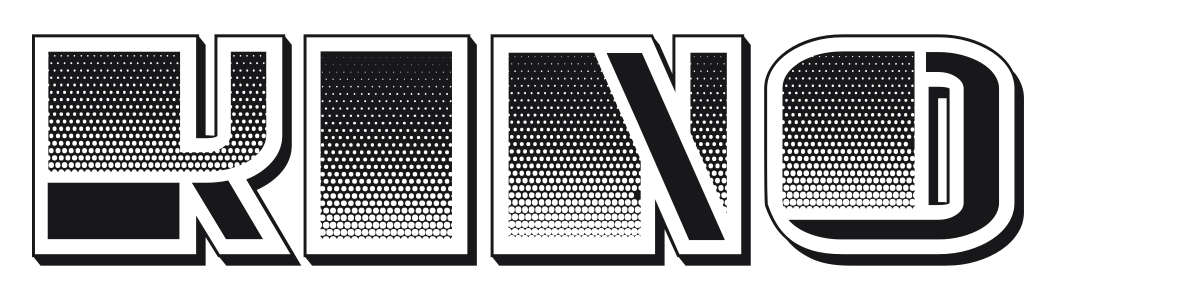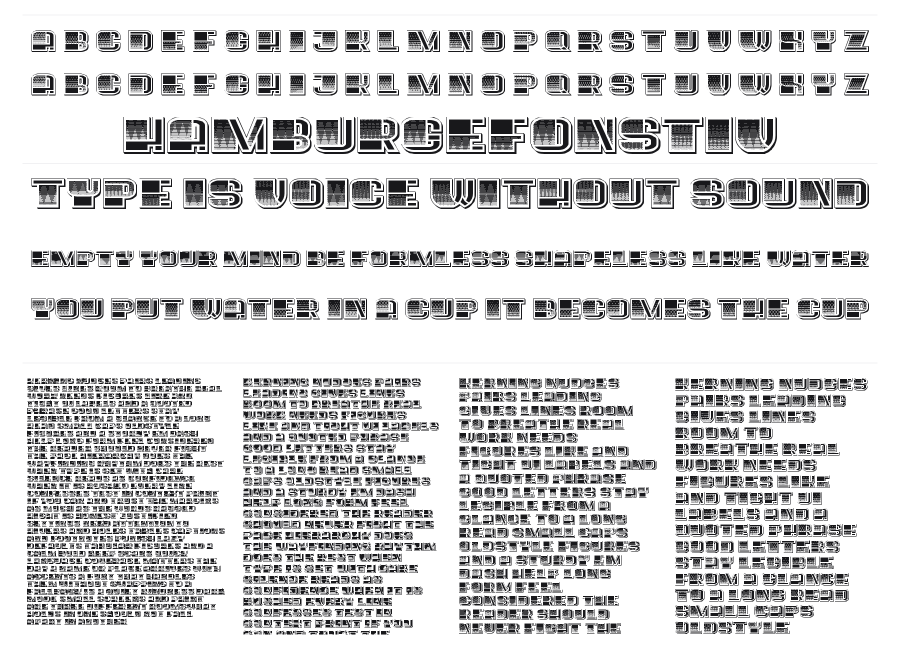
Kino
Kino is a bold condensed display font with a striking inline stripe treatment that mimics a chrome or metallic gradient across each character. Thick outer strokes frame the horizontal-ruled fill, while layered shadow planes push the letters into three-dimensional relief. It channels the energy of 1970s and 80s movie posters and arena signage.